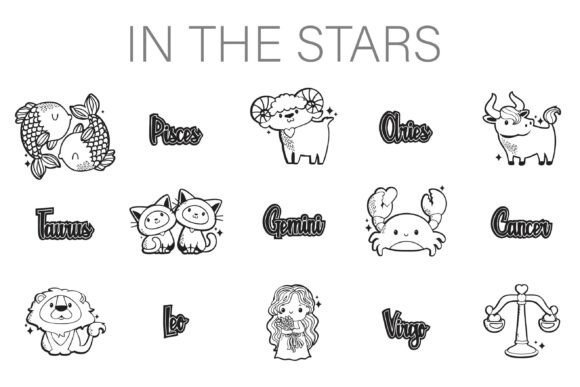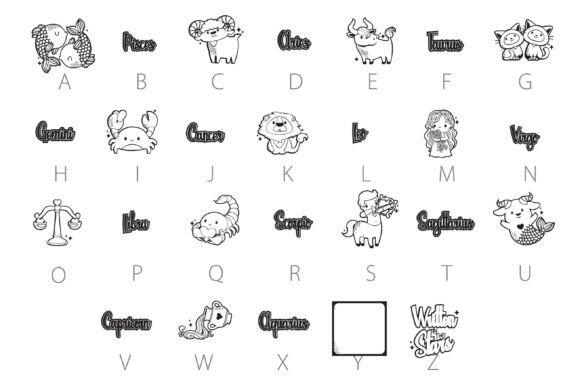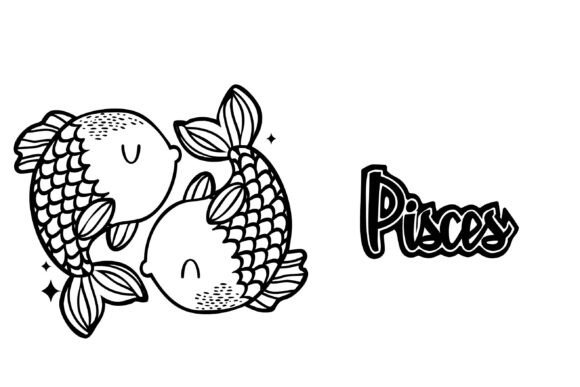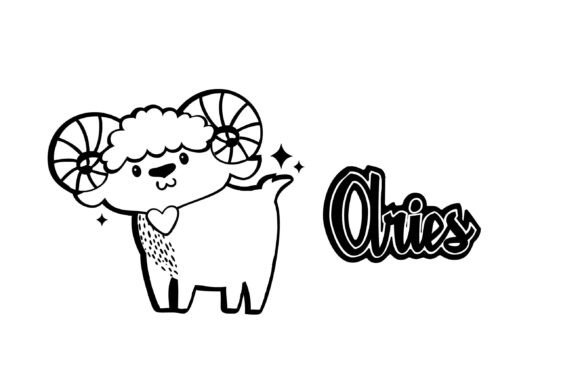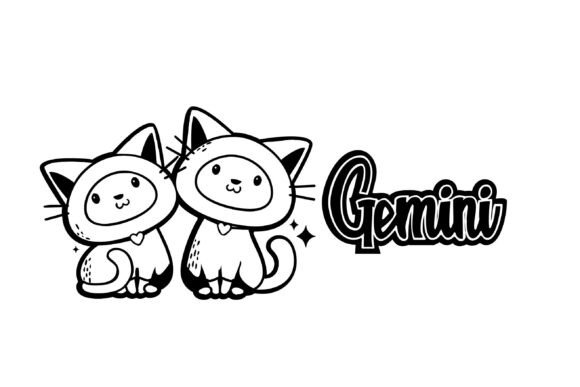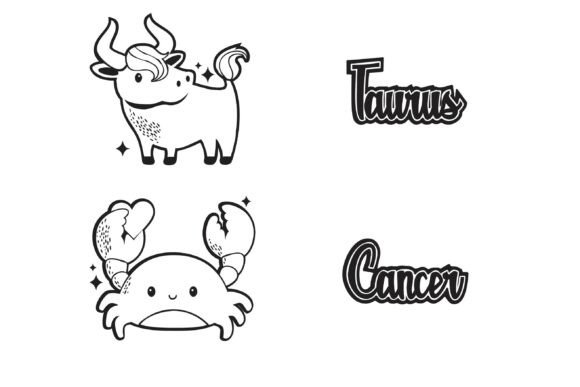
Twinkling Inspiration: Unlock the Magic of In the Stars Dingbats Font
As designers, we’ve all been there – staring at a blank canvas, waiting for the perfect spark to ignite our creativity. For me, it was a lazy Sunday morning, surrounded by astronomy books and starry night sky prints. I stumbled upon an adorable illustration of the zodiac, and suddenly, a world of whimsical possibilities opened up. That’s when I discovered In The Stars – Characters, a delightful dingbat font featuring hand-drawn personifications of the zodiac.
This charming font is more than just a design element – it’s a way to add a touch of personality and cosmic warmth to your projects. Whether you’re creating custom stickers, unique apparel, or personalized birthday stationery, In the Stars Dingbats Font delivers a sense of joyful whimsy that’s sure to delight astrology lovers and design enthusiasts alike.
In the Stars Dingbats Font Key Features
- Font Type: Dingbats Font
- Unique Characteristics: Whimsical, hand-drawn style, perfect for creating illustrations and graphics, includes a range of stars, moons, and other celestial elements
- Number of Glyphs: 100+ unique dingbats and stars
In the Stars Dingbats Font Review
Overall, I’m quite impressed with “In the Stars Dingbats Font”. It’s a beautifully crafted font that adds a touch of magic to any project. ✨ Here are some of its standout features:
- Unique and whimsical design: The font’s dingbat characters are expertly designed to evoke a sense of wonder and enchantment.
- High-resolution glyphs: The font’s high-resolution glyphs ensure that the characters remain crisp and clear, even at large sizes.
- Customizable: The font offers a range of customization options, including ligatures, swashes, and alternate characters.
However, as with any font, there are some limitations to consider:
- Limited character set: While the font offers a wide range of dingbat characters, the standard character set is somewhat limited.
- May not be suitable for body text: The font’s unique design may make it difficult to read at smaller font sizes or for extended periods of time.
Overall, I think “In the Stars Dingbats Font” is a great choice for designers looking to add a touch of magic to their projects. While it may not be suitable for all types of projects, it’s perfect for titles, headings, and other design elements where a unique and eye-catching font is needed.
Use “In the Stars Dingbats Font” to add a touch of whimsy and magic to your designs.
Pair it with bold, bright colors to create a playful and eye-catching effect.
Experiment with different font sizes and styles to create visual interest and hierarchy in your designs.
Use “In the Stars Dingbats Font” for:
Children’s book covers and illustrations
Party invitations and decorations
Whimsical greeting cards and gift tags
Alternatives to In the Stars Dingbats Font
1. Celestial Swirl
Celestial Swirl is a whimsical, hand-drawn font that features intricate swirls and curves reminiscent of celestial bodies. It’s ideal for designs that need a touch of magic and wonder, such as children’s books, fantasy novels, and dreamy advertisements.
Compared to In the Stars Dingbats Font, Celestial Swirl has a more fluid, organic feel, making it perfect for designs that require a sense of movement and energy.
2. Galaxy Dots
Galaxy Dots is a modern, geometric font that features dots and lines that evoke the vastness of the galaxy. It’s suitable for designs that need a clean, minimalist look, such as tech startups, space-themed products, and futuristic advertisements.
Unlike In the Stars Dingbats Font, Galaxy Dots has a more modern and sleek aesthetic, making it ideal for designs that require a sense of cutting-edge technology and innovation.
3. Cosmic Blooms
Cosmic Blooms is a stylized, floral font that features intricate, blooming flowers that resemble celestial bodies. It’s perfect for designs that need a touch of elegance and sophistication, such as luxury brands, high-end products, and refined advertisements.